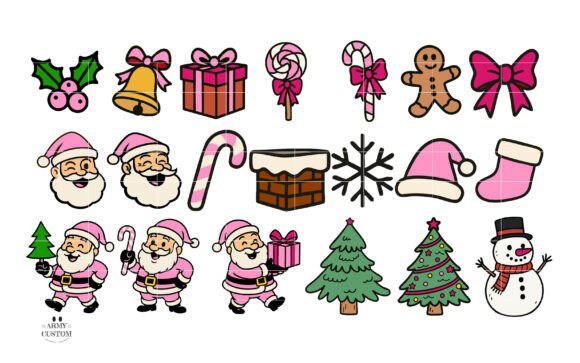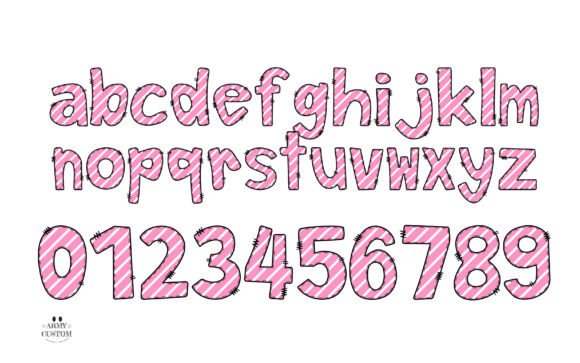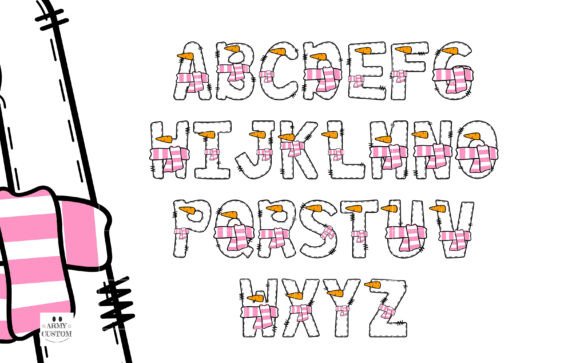
Christmas Bundle Font
Celebrate the season in style with this whimsical Christmas font bundle, bursting with festive flair and playful charm.
Each letter is decked out in holiday cheer — from reindeer antlers and candy stripes to Santa belts, scarves, and snowman noses — all wrapped in a vibrant pink palette for a fun, modern twist on classic Christmas vibes.
Perfect for holiday cards, shirts, mugs, gift tags, invitations, sublimation projects, and more, this decorative display font adds instant joy to any design. Includes full A–Z uppercase and lowercase letters plus numbers (0–9) in OTF format, ready for use in Cricut, Procreate, Illustrator, Canva, and more.
With the Christmas Pink Bundle Font, every letter spelled out becomes a joyous celebration, inspired by the adorable antics of Santa’s helpers. Indulge in the spirit of the holiday season with this charming, elfish font.